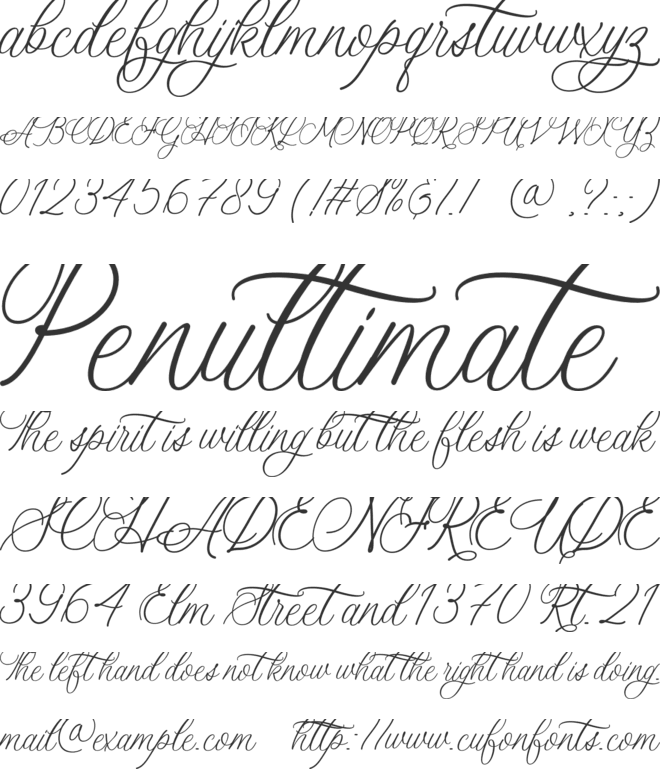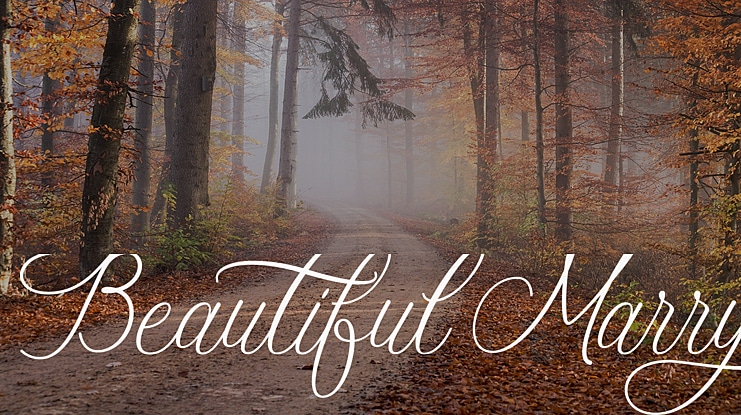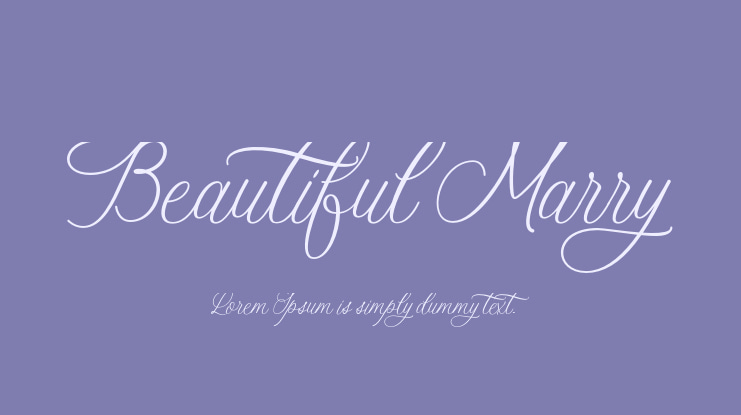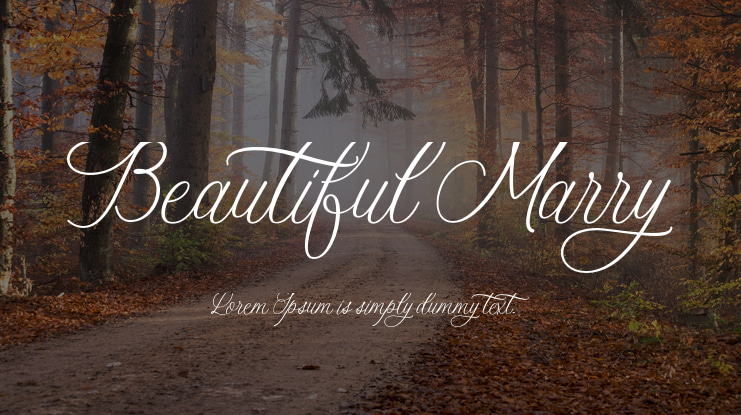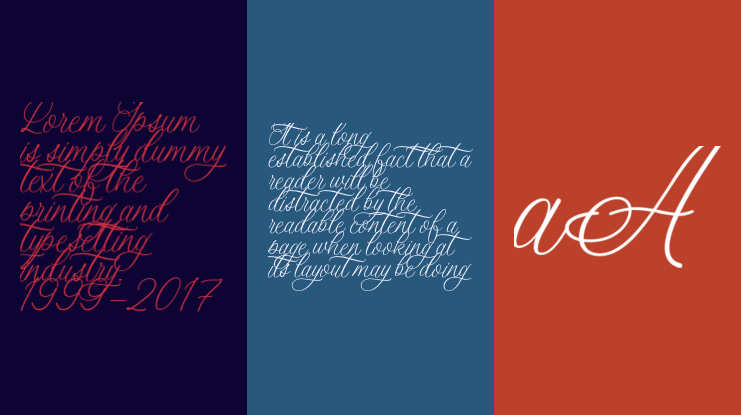
Beautiful Marry Font
Beautiful Marry is a romantic and sweet calligraphy typeface with characters that dance along the baseline. It will add a luxury spark to any design project that you wish to create! This font is PUA encoded which means you can access all of the amazing glyphs and ligatures with ease!